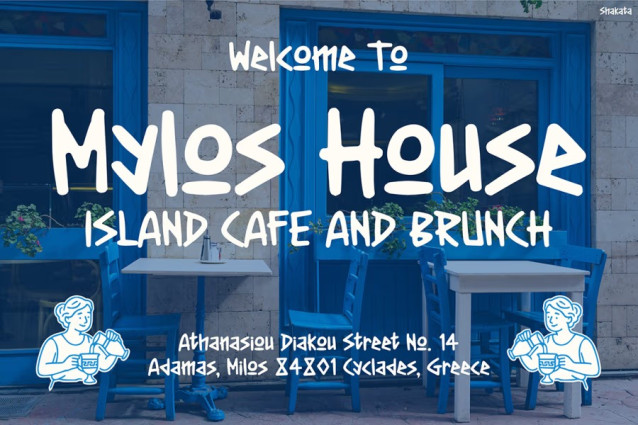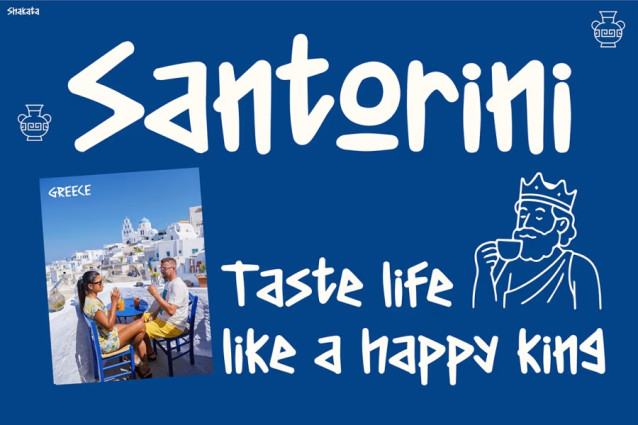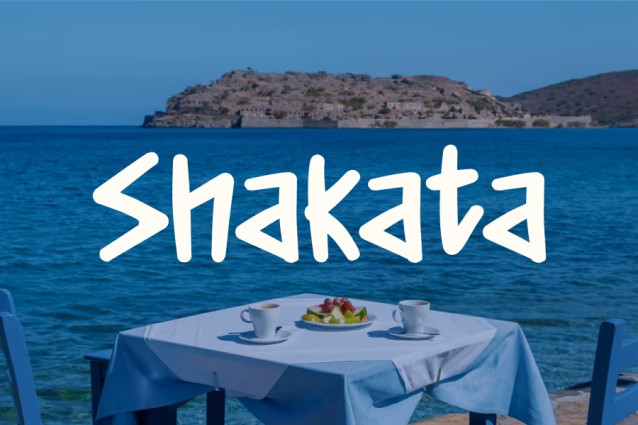
Shakata Font
Shakata Font brings a joyful and refreshing energy to any design, and moreover, it immediately stands out with its bold, hand-drawn charm. This playful typeface combines natural strokes, organic curves, and expressive movement, making every letter feel alive. Additionally, the font captures sunny island aesthetics, giving your visuals a warm and welcoming personality. Because of its dynamic structure, Kids Font Shakata not only enhances readability but also adds emotional impact, helping your message shine with clarity and character.
What Makes This Font Special
Kids Font Shakata showcases an energetic rhythm that effortlessly brings stories and messages to life. Furthermore, its handwritten appearance gives your work authenticity, making it feel approachable and full of heart. The slightly uneven shapes and handcrafted edges add originality, allowing your designs to stand out while still looking clean and intentional. In addition, the font adapts beautifully across themes such as travel, food, lifestyle, coffee culture, events, and children’s content.The example images illustrate how versatile the font truly is—appearing on café menus, Greek food promotions, travel posters, inspirational quotes, selfie challenge announcements, and grand-opening ads. As a result, Shakata helps capture coastal moods, friendly atmospheres, and positive storytelling all at once. Moreover, the font performs well in both print and digital formats, making it suitable for posters, banners, packaging, merchandise, social media graphics, and branding materials.